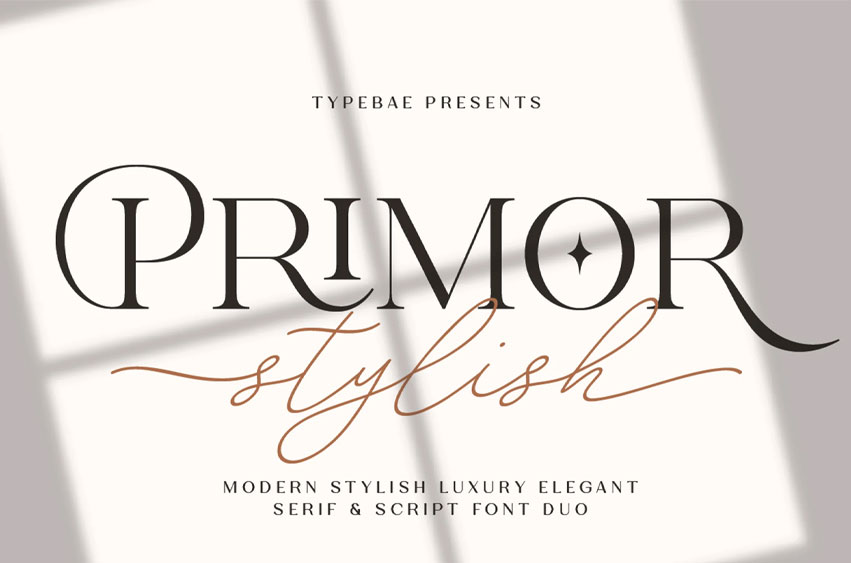
Primor Stylish Font
Primor Stylish Font is a premium font collection designed for designers, creatives, and brands who value sophistication and style. Combining classic beauty with modern features, Primor Stylish offers a versatile trio of luxury serif, italic serif, and handwritten signature script fonts to elevate any high-end design project.
Whether you’re designing for luxury branding, wedding stationery, fashion editorials, or upscale packaging, Primor Stylish brings a polished and graceful look with professional-level features and stunning customizability.
Primor Stylish Serif – Timeless & Elegant
An all-caps serif with timeless charm, available in both upright and slanted styles. Uppercase letters feature elegant swashes, perfect for initials, while lowercase offers a simpler caps style. Ideal for luxury branding, headlines, and premium logos.
• Character Set: All-caps letters, numerals, punctuation, and multilingual support
• Ligatures: 32 elegant ligatures for smoother letterforms
• Stylistic Alternates: Features small, raised lowercase alternates (A, E, O, U), each placed above a delicate star symbol
• Serif Italic: A refined slanted version adds classic flair and contrast
Primor Stylish Script – Signature & Romantic
A stylish handwritten script with natural flow and a personal touch. Perfect for wedding invites, feminine branding, and signature-style logotypes.
• Character Set: Full uppercase & lowercase, numerals, punctuation, and multilingual support
• Stylistic Alternates: Includes 104 alternates with sweeping entry and exit swashes on lowercase characters
• Connector Style: Features soft extended strokes and heart-shaped connectors for a romantic touch
OpenType Features All three fonts in the Primor Stylish family are enhanced with OpenType capabilities, including standard ligatures, stylistic alternates, and decorative swashes. With full PUA encoding, every special glyph and alternate character can be used seamlessly across most design platforms, even without advanced software.
Primor Stylish is more than just a font; it’s a statement of elegance. With its rich stylistic options and refined details, this collection gives you the creative freedom to build luxury-driven designs that stand out with beauty and class.